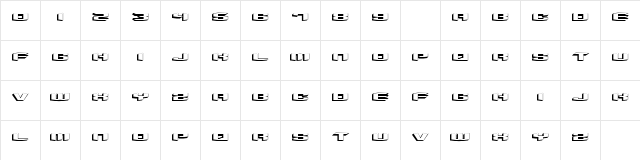
BeyondControl volume2 Regular Free Font
BeyondControl volume2 Regular
Design Context for BeyondControl volume2
BeyondControl volume2 is a composed and adaptable typeface that performs quietly and consistently across a wide range of design contexts.